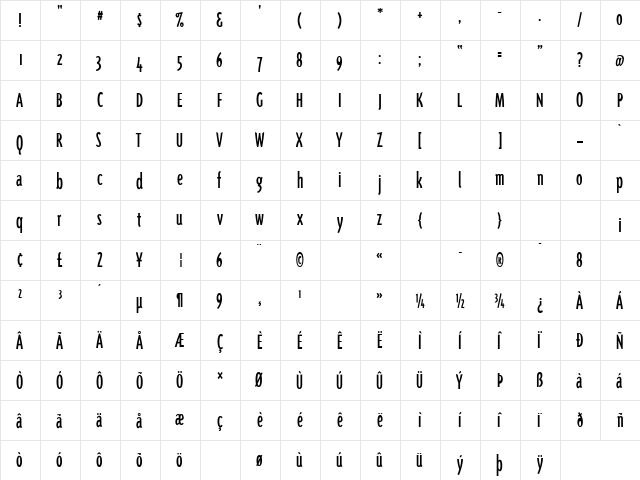
Triplex Cond Regular Regular
Design Context for Triplex Cond Regular Typeface
Triplex Cond Regular offers clean, dependable letterforms without strong stylistic allegiance, making it a practical choice for designers who need flexibility. Its narrow stance lets it pack a punch even in space-constrained designs.